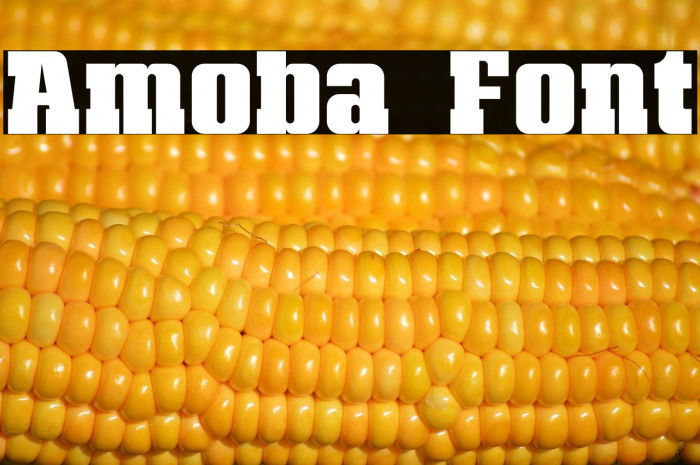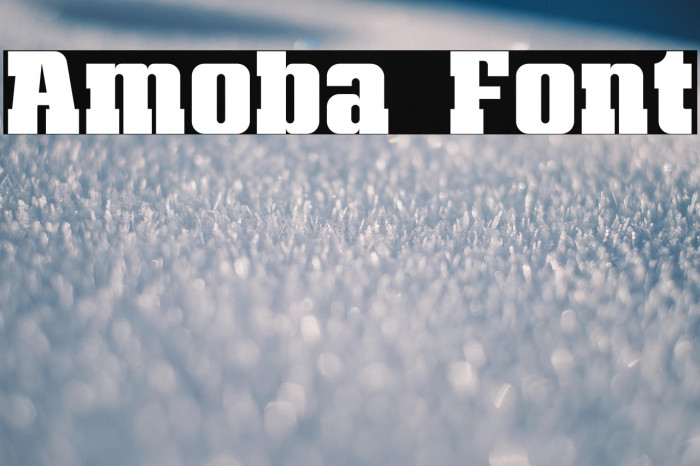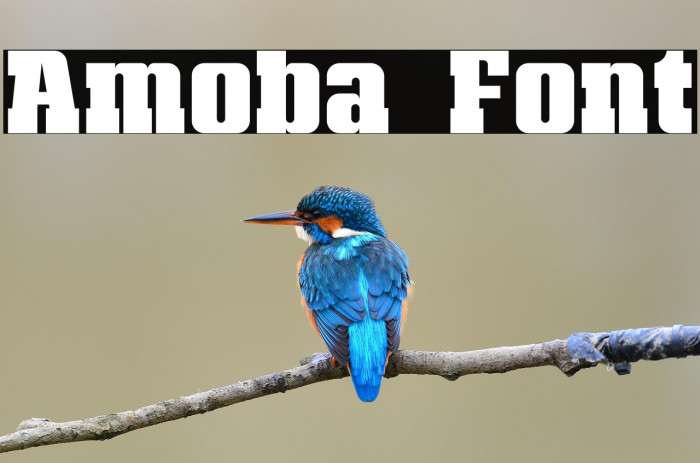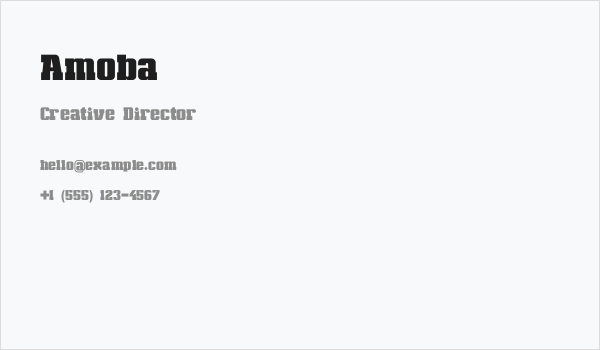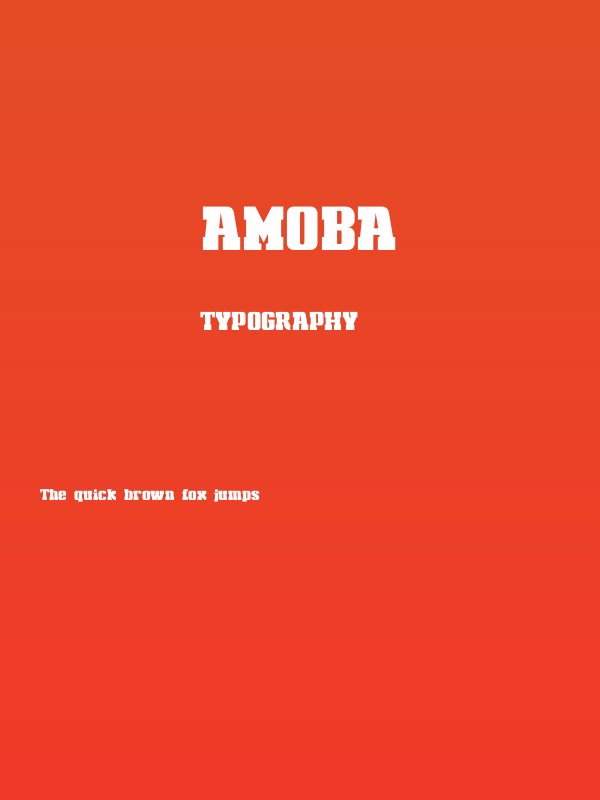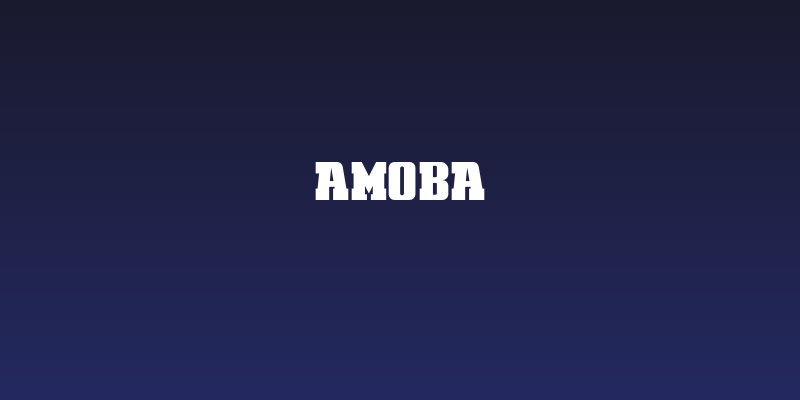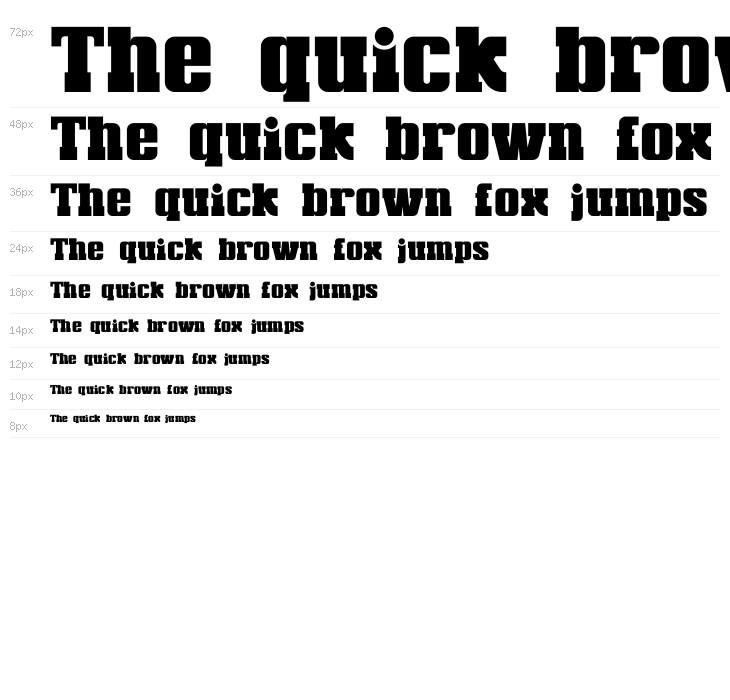
Amoba Font
Amoba Description
This font features bold, blocky characters with a strong presence, making it ideal for impactful designs. The uppercase letters are particularly striking, with thick strokes and a robust appearance. The lowercase letters maintain the same boldness, ensuring consistency across text. Numbers and special characters are equally bold, providing a cohesive look. The font's slab serif style adds a touch of classic elegance while maintaining a modern feel. Its high contrast between thick and thin strokes enhances readability and visual interest.
| Proposed Projects | Ideal for posters, headlines, branding, and any design requiring a bold statement. |